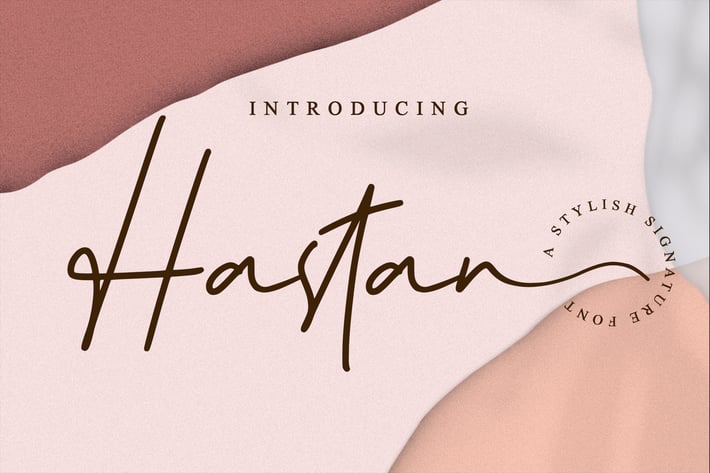
Hastan - Elegant Signature Font
The Hastan // Fashionable Handwritten Font
The Hastan is a stylish and delicate script font that exudes elegance and class. This font was particularly crafted for those who need a beautiful and refreshing look to their designs.
Stylish modern handwritten script
Special Ligatures and Swash
* Multilingual Support